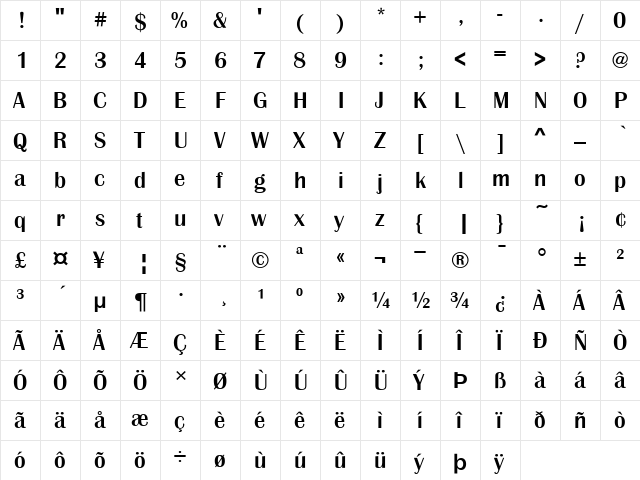
Britannic T Regular
Design Context for Britannic T Typeface
Britannic T takes a measured approach to typography — its balanced proportions and neutral character make it a reliable workhorse for both digital and print work.